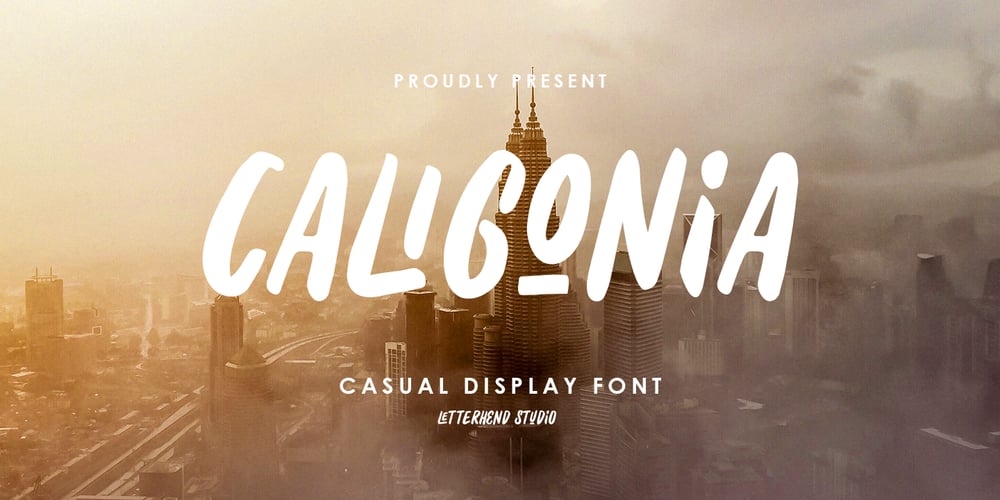
Caligonia Font Family was designed by Hendry Juanda and published by Letterhend. Caligonia contains 1 styles and family package options. Caligonia, a casual display font which has unique ligatures. This font perfectly made to be applied especially in logo, and the other various formal forms such as invitations, labels, logos, magazines, books, greeting / wedding cards, packaging, fashion, make up, stationery, novels, labels or any type of advertising purpose.Features : uppercase & lowercase numbers and punctuation multilingual ligatures alternates PUA encoded We highly recommend using a program that supports OpenType features and Glyphs panels like many of Adobe apps and Corel Draw, so you can see and access all Glyph variations. For how to accessing opentype feature, kindly check this link letterhend.com/tutorials/using-opentype-feature-in-any-software/Email us to letterhend@gmail.com if you need something! Happy Designing!